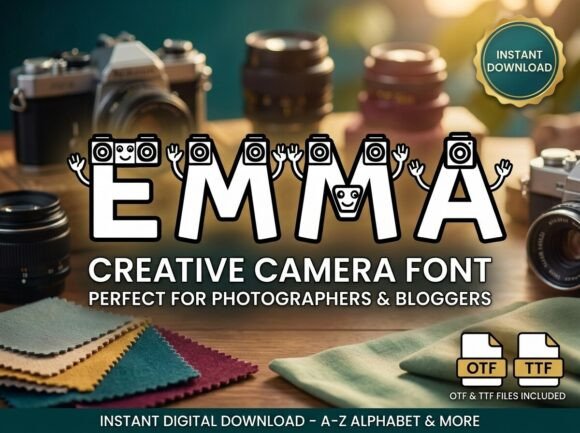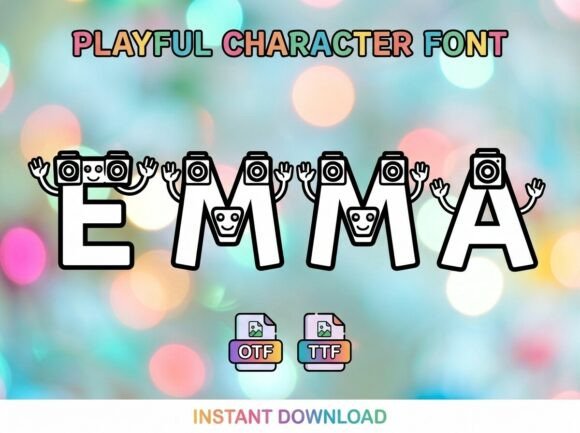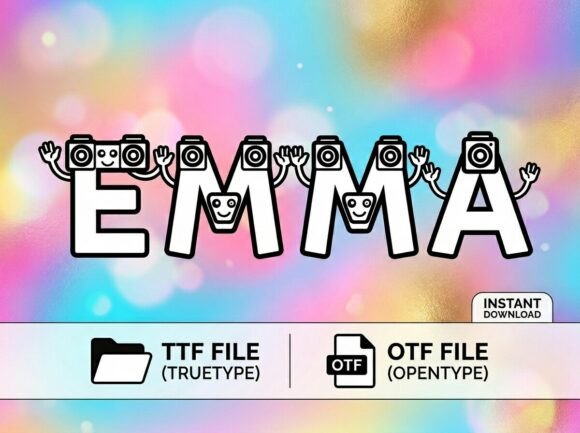
Introducing Emma Font: The Playful Display Font for Creative Minds
Are you a designer, photographer, or crafter looking for a font that captures the essence of fun and creativity? Look no further than Emma Font, a playful display font that embodies a “fun-and-photogenic” soul. This unique typeface features bold, friendly sans-serif letterforms that are sure to bring a smile to your face.
What Makes Emma Font So Special?
Emma Font is not just any ordinary font. Each character is carefully designed to resemble an animated camera character, complete with waving arms, smiling lens faces, and vintage camera bodies. This whimsical design makes Emma Font perfect for creative professionals who want to add a touch of personality to their branding, logos, and social media headers.
Key Features of Emma Font
- Bold and Friendly Letterforms: Emma Font features heavy, sans-serif letterforms that are both bold and friendly.
- Animated Camera Characters: Each character is designed to look like an animated camera character, complete with waving arms and smiling lens faces.
- Vintage Camera Bodies: The font features vintage camera bodies, adding a touch of nostalgia and whimsy to your designs.
- Rhythmic Whimsical Aesthetic: Emma Font has a rhythmic, whimsical aesthetic that is sure to capture the attention of your audience.
Use Cases for Emma Font
Emma Font is perfect for a variety of creative projects, including:
- Independent Photography Studio Branding: Use Emma Font to create a unique and memorable brand identity for your photography studio.
- Lifestyle Blogger Logos: Add a touch of personality to your blog with a custom logo featuring Emma Font.
- Children’s Photo Album Titles: Create adorable and playful titles for children’s photo albums with Emma Font.
- High-Impact Social Media Headers: Use Emma Font to create eye-catching social media headers that showcase your creativity and personality.
Why Choose Emma Font?
With so many fonts available, why choose Emma Font? Here are just a few reasons:
- Unique and Playful Design: Emma Font is unlike any other font on the market, with its animated camera characters and whimsical design.
- High-Impact Visibility: The bold, heavy letterforms and rhythmic aesthetic of Emma Font make it perfect for high-impact designs that demand attention.
- Versatility: Emma Font can be used for a wide range of creative projects, from branding and logos to social media headers and children’s photo albums.
Tips for Using Emma Font Effectively
Here are a few tips for using Emma Font effectively in your designs:
- Use it Sparingly: Emma Font is a bold and playful font, so use it sparingly to avoid overwhelming your design.
- Pair it with Other Fonts: Experiment with pairing Emma Font with other fonts to create a unique and visually appealing design.
- Experiment with Colors: Don’t be afraid to experiment with different colors and textures to add depth and interest to your design.
Emma Font is a unique and playful display font that is perfect for creative professionals who want to add a touch of personality to their designs. With its bold, friendly letterforms and whimsical design, Emma Font is sure to capture the attention of your audience and leave a lasting impression. So why wait? Download Emma Font today and start creating fun and photogenic designs that showcase your creativity and style!